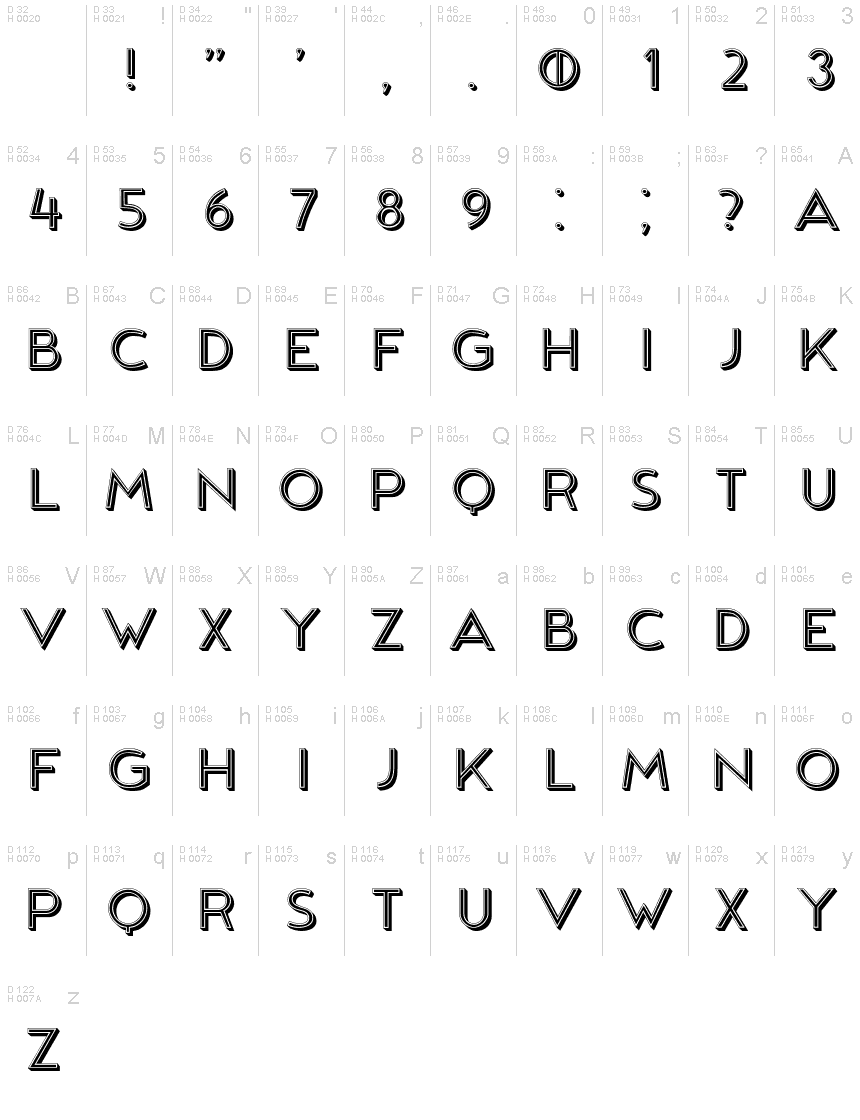
Vescovo Regular
Introducing Vescovo, a 3d sans serif font designed by Vladimir Nikolic. It is light in weight, yet wide in its range of characters. This font is the perfect choice for creating eye-catching designs with a modern and dynamic feel. From logos to magazine covers, Vescovo is ideal for projects that need to stand out from the crowd.